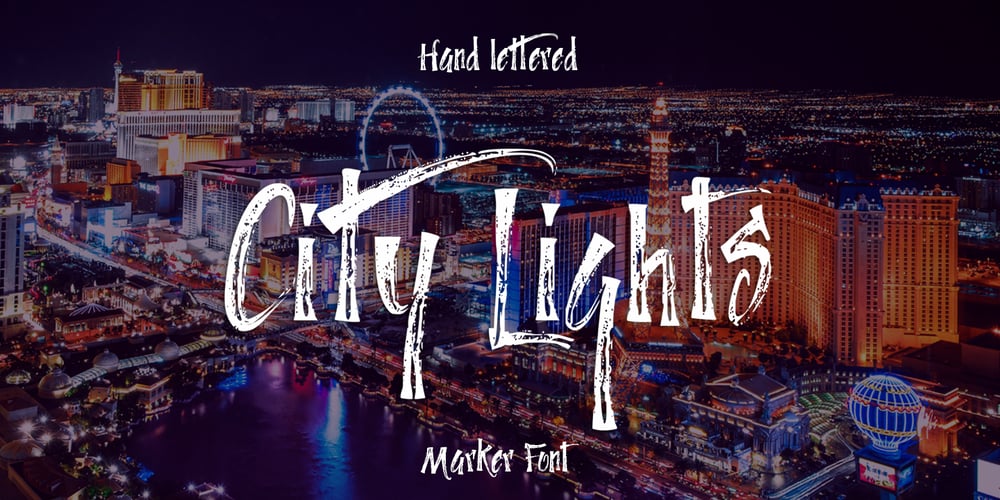
City Lights Font Family was designed by Joanne Hewitt and published by Joanne Marie. City Lights contains 1 styles and family package options. City Lights marker font is my latest hand lettered font. What fun I’ve had practising creating the glyphs with several types of markers!This quirky font is great to give that natural handlettered look to your designs – it’s perfect for titles and as body text (not too much though!). I think it’s most appealing for apparel such as tote bags, t-shirts, cushions, mugs, etc but also for designs aimed at teenagers, such as book covers, magazine headlines. As it’s so readable, it will also be good for food packaging.